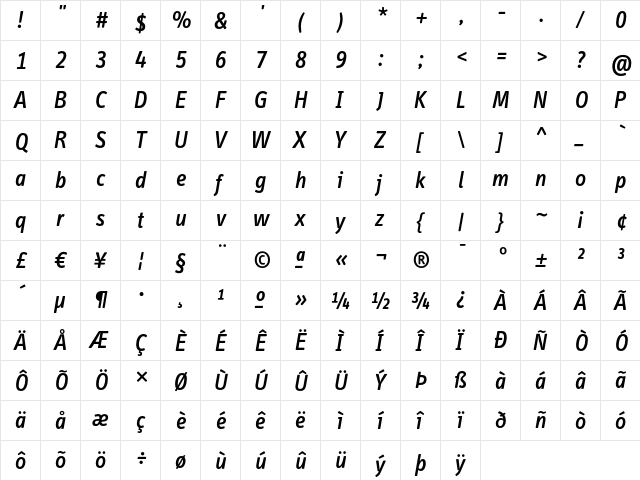
InfoDispMediumTf Italic
Design Context for InfoDispMediumTf Typeface
InfoDispMediumTf is a composed and adaptable typeface that performs quietly and consistently across a wide range of design contexts. Its italic angle brings a sense of urgency and motion to the letterforms.
Pro Tip: Use InfoDispMediumTf for emphasis, pull quotes, and subheadings where its slanted energy can add rhythm to the layout.